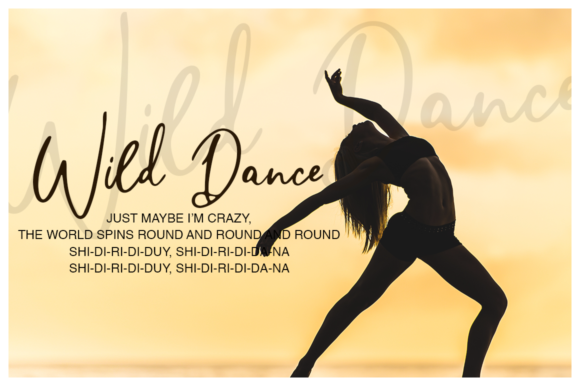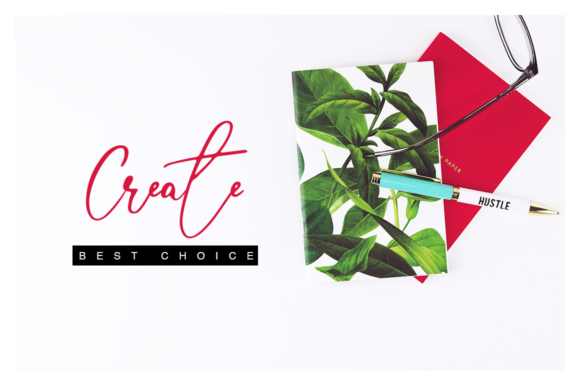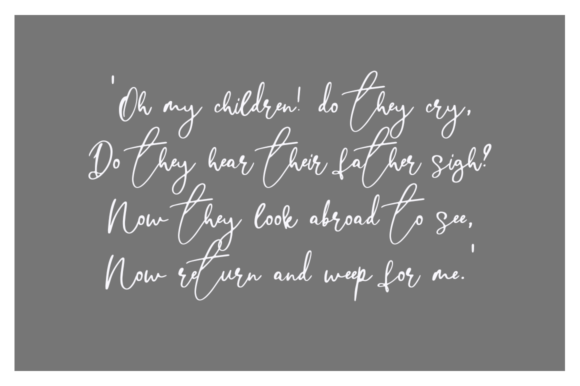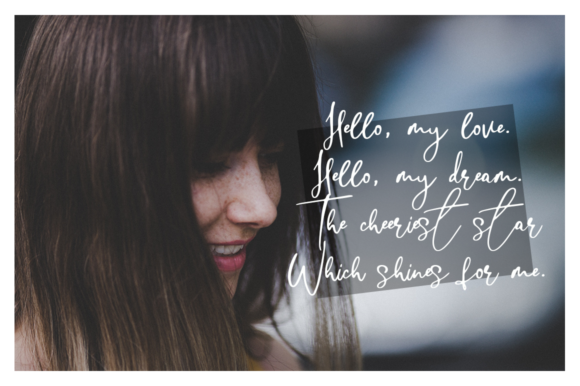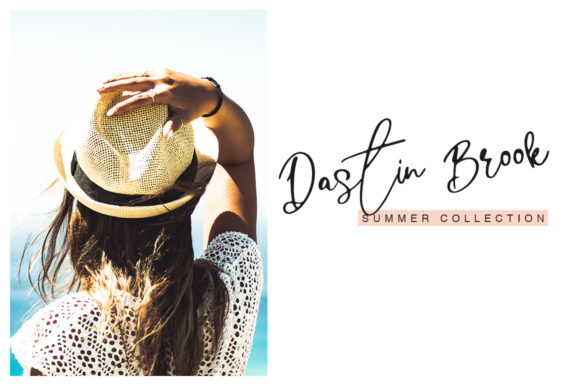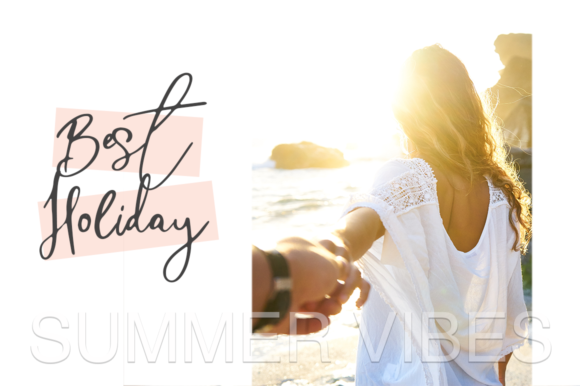
The Best Choice Font: A Sweet and Friendly Companion for Your Designs
I’ll never forget the time I was working on a project for a client who wanted a font that was both playful and elegant. I spent hours scouring the internet for the perfect match, but nothing seemed quite right. That was until I stumbled upon the Best Choice font. Its natural, flowing style immediately caught my eye, and I knew I had found the one. In this article, I’ll share my experience with the Best Choice font, its features, and how to make the most of it in your designs.
A Personal Review: What I Love About Best Choice
The Best Choice font has quickly become one of my go-to fonts for a variety of projects. Here are some things I love about it:
- ✨ Sweet and friendly vibe: The Best Choice font has a warm and approachable feel that’s perfect for designs that need a personal touch.
- ✅ Natural and flowing style: The font’s handwritten style makes it incredibly fitting for a wide range of designs, from invitations to branding materials.
- 🔥 Highly versatile: Best Choice works well in both digital and print designs, making it a great addition to any designer’s toolkit.
While the Best Choice font is amazing, it’s not perfect. Here are a few things to keep in mind:
- 🤔 Limited use in very formal designs: The Best Choice font is playful and friendly, which means it might not be the best fit for very formal or corporate designs.
- ⚠️ Some letters may require adjustment: As with any handwritten font, some letters may need to be adjusted to ensure proper spacing and alignment.
- Experiment with the font’s OpenType features, such as stylistic alternates and glyphs, to add some extra flair to your design.
The Story Behind Best Choice
The Best Choice font was designed with the intention of creating a friendly and approachable typeface that’s perfect for everyday designs. The designer wanted to create a font that felt like a warm hug – something that’s both soothing and inviting. With its natural and flowing style, Best Choice is the perfect companion for any design project.
| What type of designs is Best Choice best suited for? | Best Choice is a versatile font that’s perfect for a wide range of designs, including invitations, branding materials, and digital designs. |
| Does Best Choice support OpenType features? | Yes, Best Choice supports OpenType features, including stylistic alternates and glyphs. |